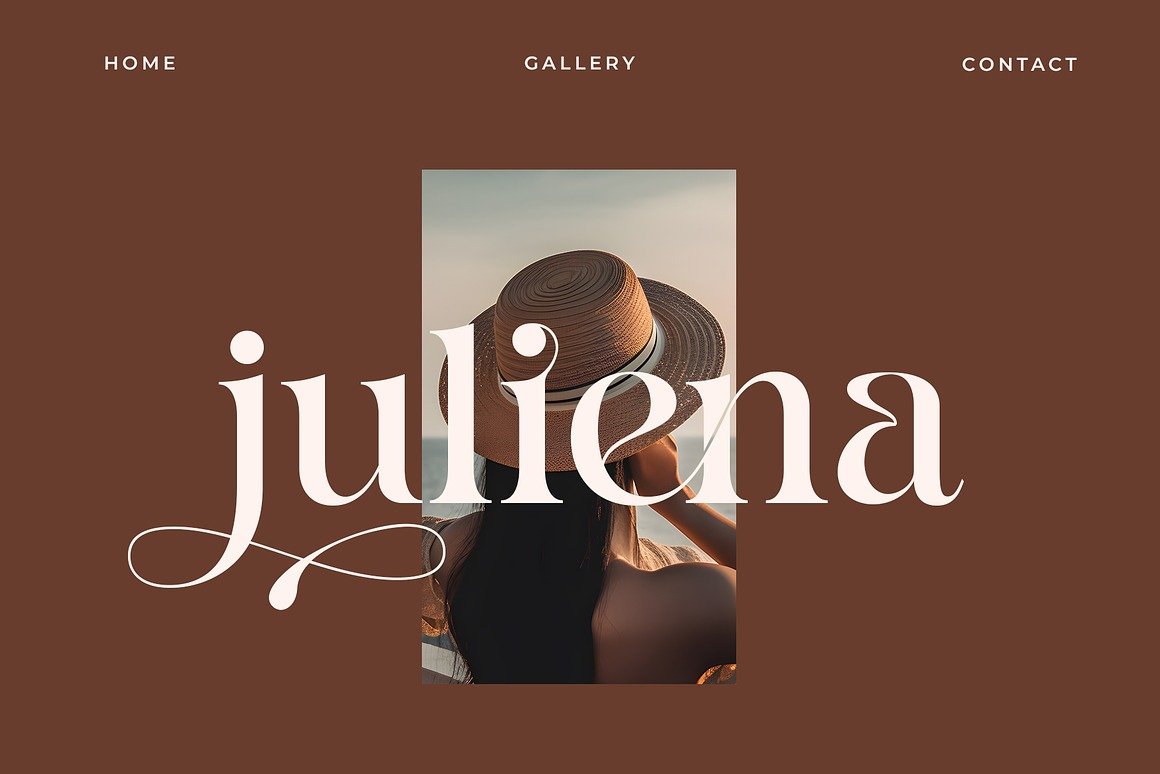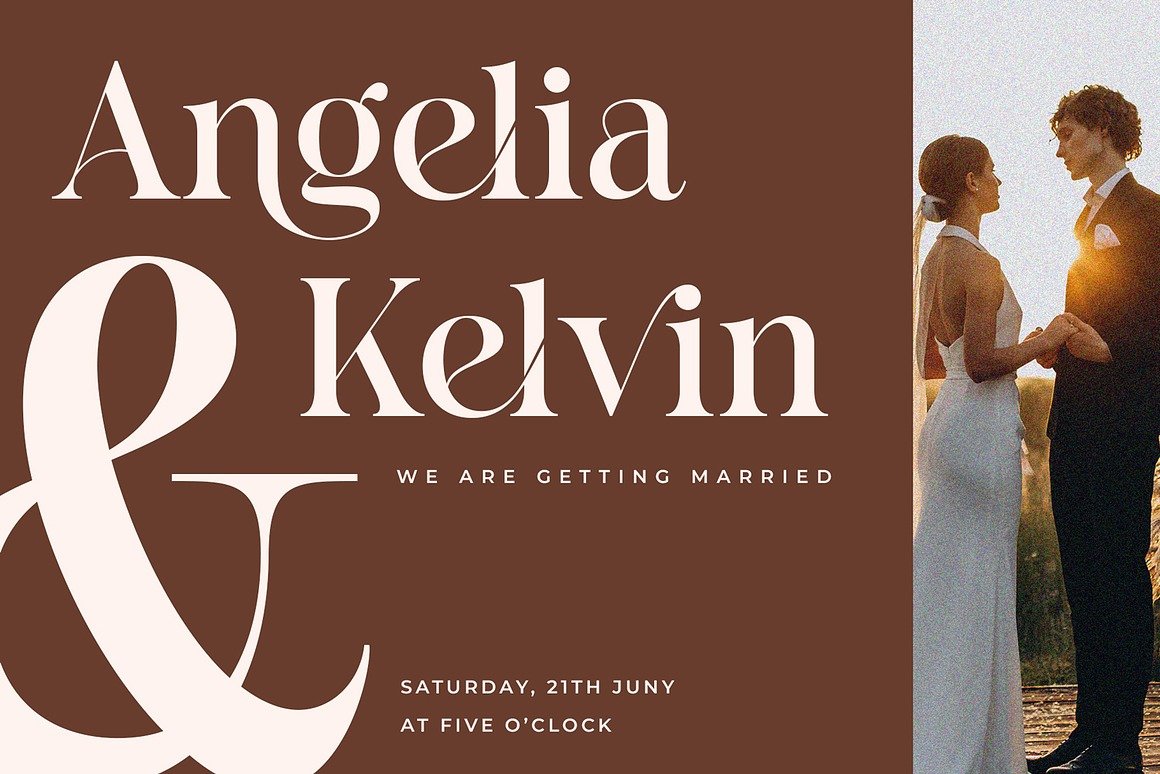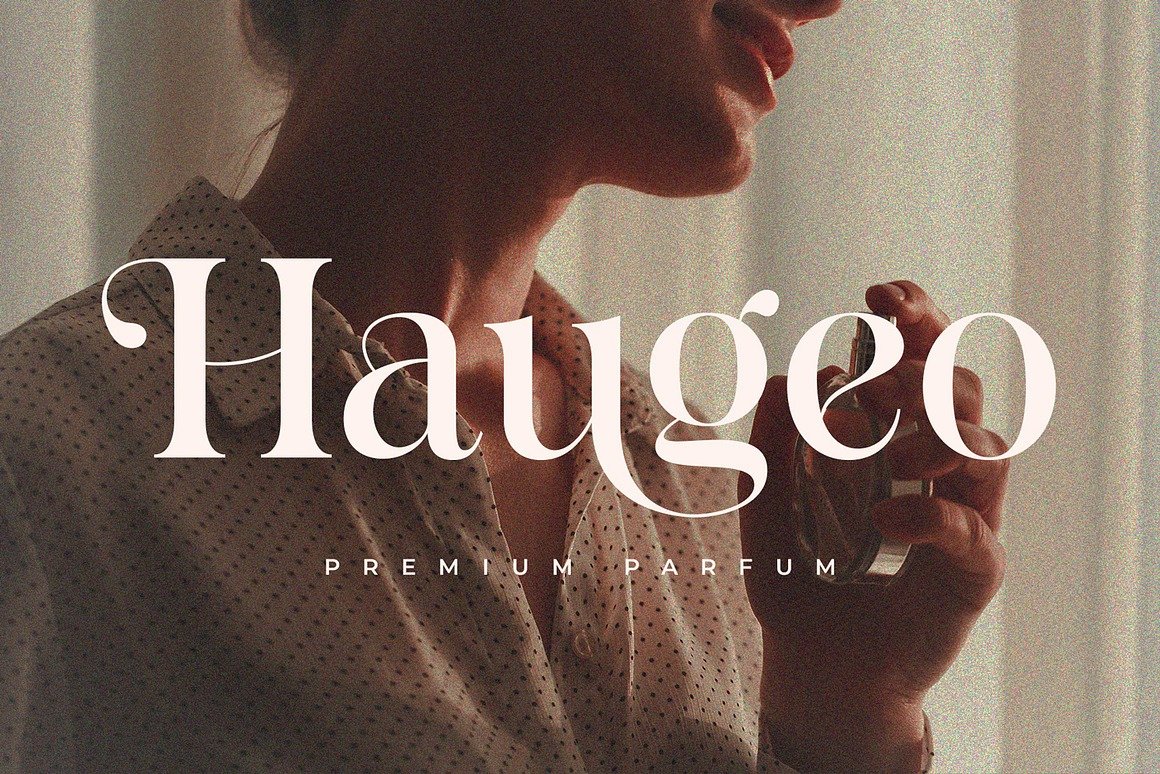
Felgine Ligature Serif Font
Felgine – Ligature Serif Font: Chic Elegance Meets Modern Typography
Felgine Ligature Serif Font is a display serif by Rantautype Studio, meticulously crafted to blend elegance with contemporary versatility. Debuting in June 2023, it showcases refined contrast, stylistic ligatures, and a fashion-forward aesthetic—making it a go-to choice for designers aiming to elevate visual storytelling.
Felgine- a chic & elegant display modern serif with beautiful contrast and have unique ligature for optional. Specially designed for fashion-themed projects, perfectly suitable for creating elegant, chic, lifestyle design such as logos, title, and magazine, and more. Now you have more choice when using Felgine for typography.